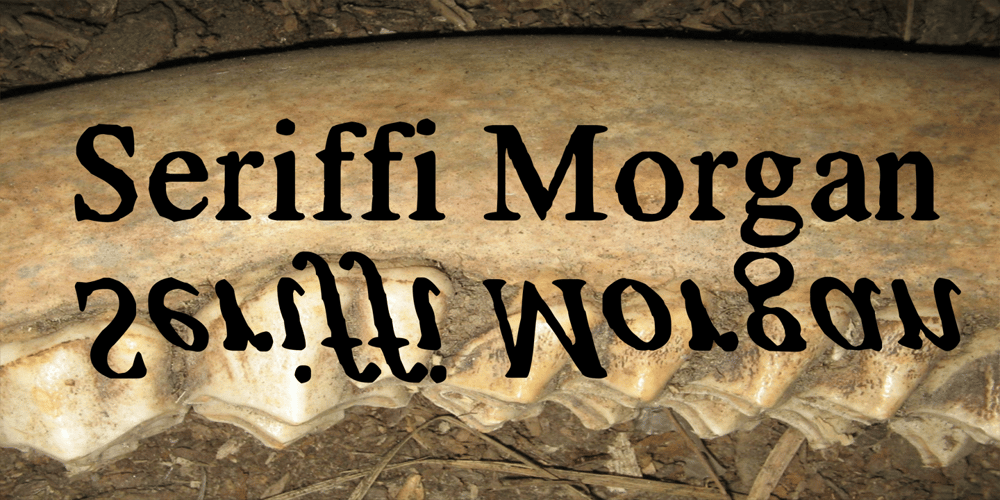
Seriffi Morgan Font Family was designed by Heikki Morgan Hämäläinen and published by Morganismi. Seriffi Morgan contains 2 styles and family package options. Seriffi Morgan is a paper-tasting serif typeface, just what you need. It supports West and Central European languages as well as Baltic, Turkish and Romanian.